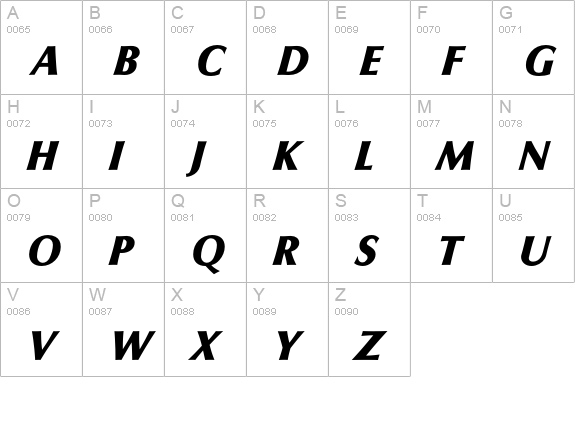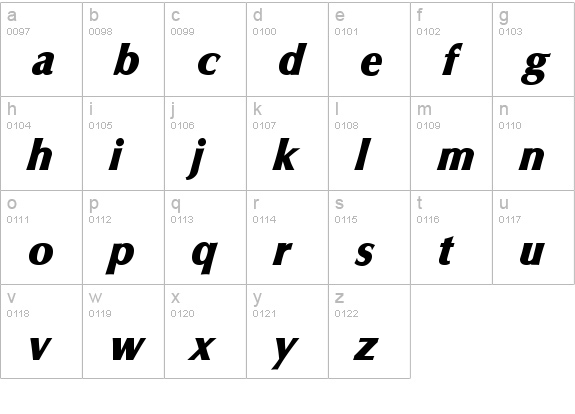
Columbia-ExtraBoldIta Font Details
Columbia-ExtraBoldIta is a striking and modern font that exudes confidence and strength. With its bold weight and stylish italicized design, this typeface is perfect for making a bold statement in any project. The sleek curves and sharp angles of Columbia-ExtraBoldIta give it a unique and dynamic appearance that is sure to grab attention. What sets Columbia-ExtraBoldIta apart is that it is not only visually appealing but also versatile and easy to read, making it an excellent choice for a wide range of design applications. Whether you're creating a poster, logo, website, or any other design project, Columbia-ExtraBoldIta will help you make a lasting impression. And the best part? Columbia-ExtraBoldIta is available for free download at FontsMarket.com. This means that you can easily access this high-quality font and use it in your projects without any cost. Don't miss out on the opportunity to enhance your designs with the bold and stylish Columbia-ExtraBoldIta font - download it today and take your creations to the next level!